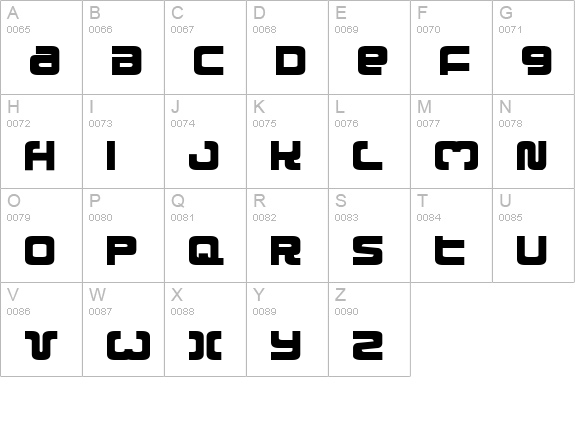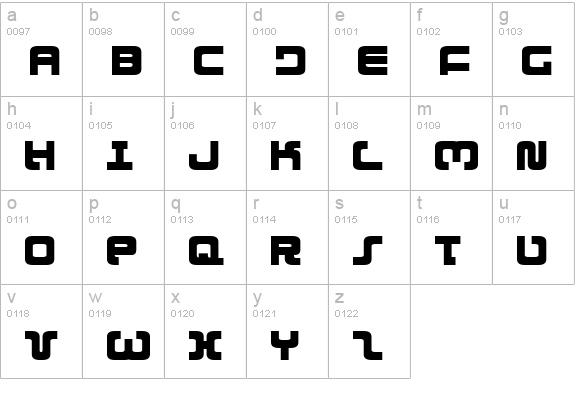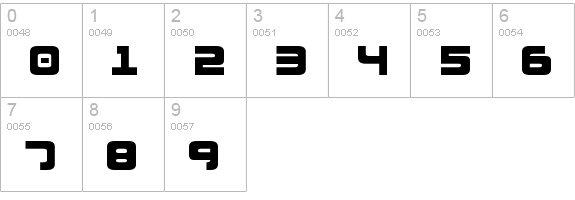
Exedore is a modern and stylish font that exudes elegance and sophistication. With its sleek lines and contemporary design, Exedore is perfect for a wide range of design projects, from branding to advertising to web design. This versatile font is sure to make your text stand out and leave a lasting impression on your audience. And the best part? Exedore is completely free to download at FontsMarket.com. Yes, you read that right - this high-quality font is freely available for you to use in your projects without any cost. So why wait? Elevate your designs with Exedore today and experience the difference that a beautiful font can make.